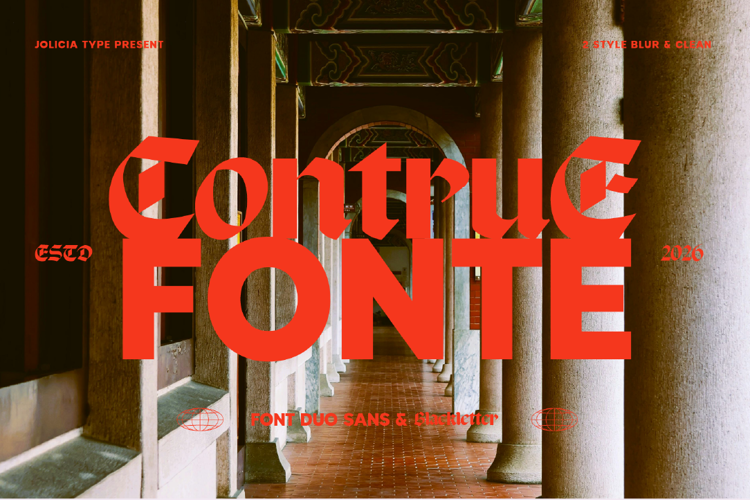
Contrue Fonte Font
Sans Style
Contrue Fonte is a bold font duo that bridges modern minimalism
and medieval drama. It combines a clean contemporary sans serif
with an expressive blackletter style, creating powerful contrast for
statement-driven design. Enhanced with a unique blur style,
Contrue Fonte adds depth, motion, and a surreal edge—ideal for
branding, posters, album covers, editorials, and experimental
visual storytelling.